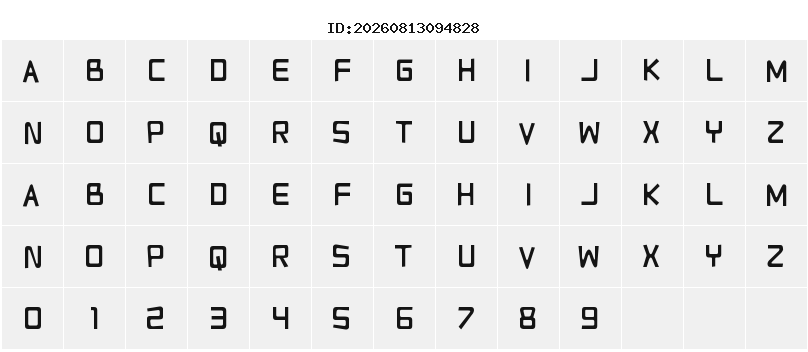
Relapse Into Madness Preview
• Font Name: Relapse Into Madness
• Full Font Name: Relapse Into Madness
About Relapse Into Madness.otf
Relapse Into Madness.otf is a modern, elegant sans-serif font designed for ultimate readability and visual harmony. Perfect for branding, headlines, web design, and print materials.